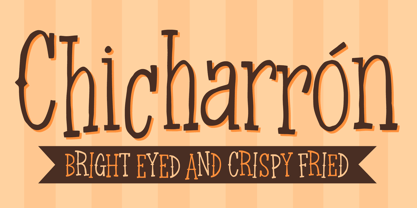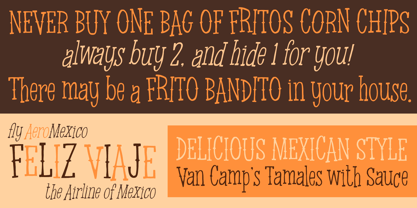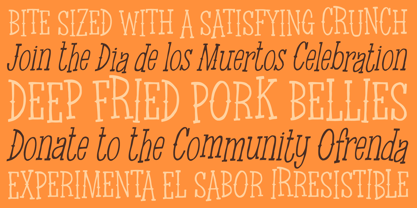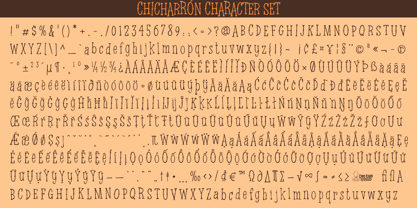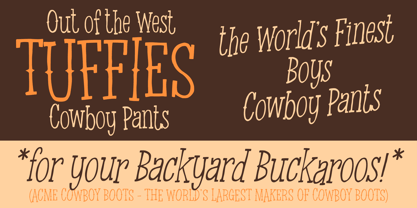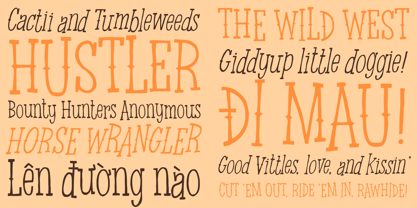
Chicharron
by One Eyed Squid
The Chicharron Font Family was designed by Brian J. Bonislawsky, Dave Cohen and published by One Eyed Squid. Chicharron contains 2 styles and family package options. More about this family
Chicharron is a savory, playful display font with bold flavor, quirky charm, and a lively hand-crafted personality. Its expressive letterforms bring warmth, fun, and a slightly offbeat energy to designs that want to feel memorable, flavorful, and full of character. Available in Regular and Oblique styles, Chicharron also includes randomized default and alternate behavior through ligatures for a more varied and dynamic typographic texture. Ideal for headlines, posters, branding, packaging, menus, restaurant graphics, social media, and other creative projects that call for a bold, unconventional display style. Includes extended Latin language support, including Vietnamese.
Designers: Brian J. Bonislawsky, Dave Cohen
Foundry: One Eyed Squid
Dave "Squid" Cohen & Brian "Stiggy" Bonislawsky combine their fontmaking talents to bring you an array of fun and entertaining typefaces loaded with animated and diverse retro flavor.You may know Dave Cohen's fonts from Sideshow and Neapolitan type foundries, as you may know Brian Bonislawsky's fonts from Astigmatic (AOETI), Grype, Pink Broccoli, Monogram Fonts Co., Stiggy & Sands, and VersusTwin type foundries.So what is this foundry all about? It's all about bringing collaborative skills to bear to express more of their crazy typographic ideas and create even more exciting fonts to the design community.